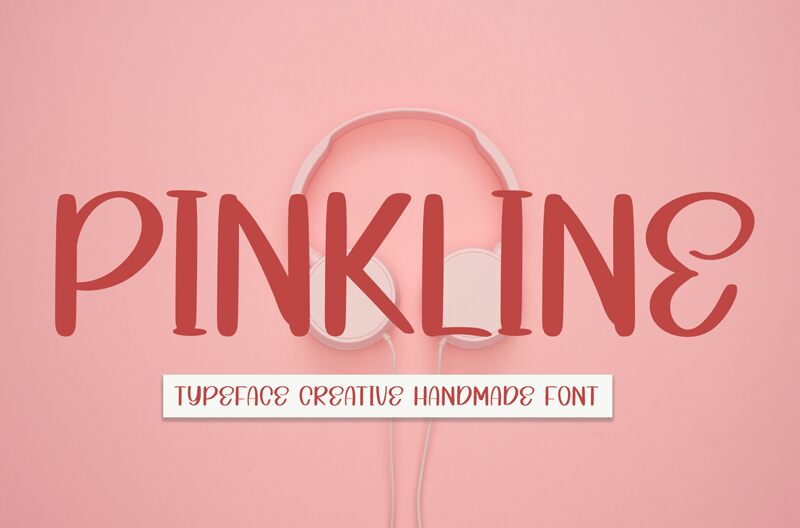
Pinkline
Pinkline by Andi Moz is a captivating handwritten display font that exudes a whimsical and friendly charm. This playful typeface boasts organic strokes and a delightful, slightly irregular flow, evoking a sense of handcrafted warmth and authenticity. Pinkline's distinctive character embodies a youthful, inviting aesthetic, making it an alluring choice for designs seeking a touch of playfulness and approachability.
Pinkline's versatility shines through, making it an ideal selection for a variety of design applications. Whether crafting heartfelt wedding invitations, crafting endearing greeting cards, or adding a playful accent to branding and packaging, this font's unique personality lends itself seamlessly to projects that aim to convey a sense of joy, intimacy, and personal expression.